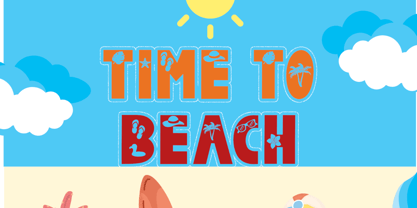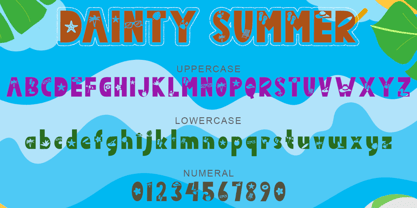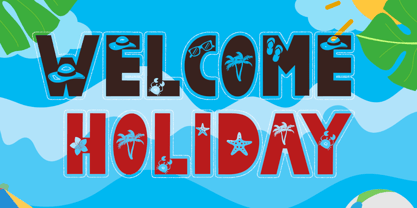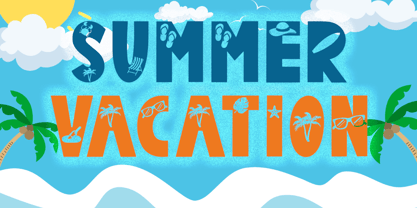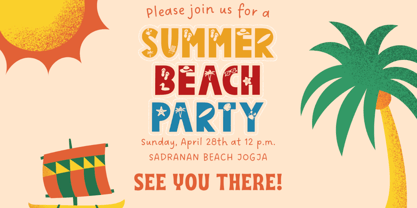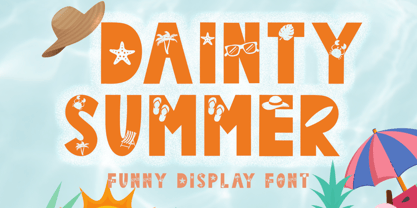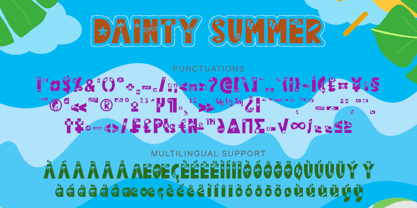
Dainty Summer
The Dainty Summer Font Family was designed by Isroni Yoga Prasetya and published by Yoga Letter. Dainty Summer contains 1 styles. More about this family
"Dainty Summer" is a unique and cute display font. This font is varied with summer-related shapes. Equipped with uppercase, lowercase, numbers, punctuation, and multilingual support. Perfect for use in summer, spring, vacation, holiday, camping, etc.